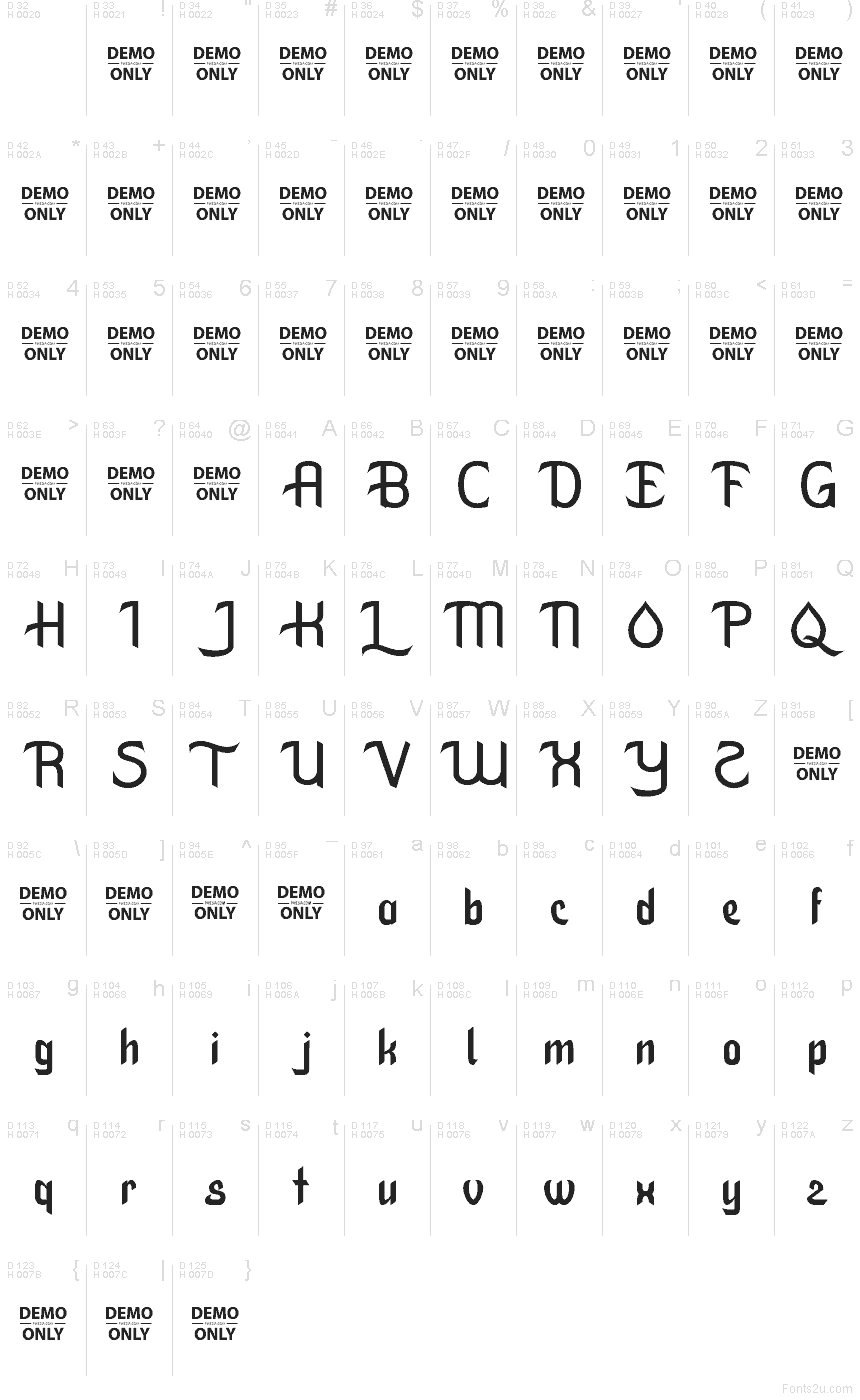
Ramadhan Day font by Pixesia Studio is a free faux-Arabic decorative typeface that turns Latin letters into flowing, Eastern-inspired forms. Tall, slightly condensed letters, gentle curves, and pointed stroke endings echo calligraphy without sacrificing readability. The rhythm feels both festive and dignified, making it easy to evoke Ramadhan and Middle Eastern themes with just a headline or short phrase.
Using Ramadhan Day, your titles instantly gain a warm, lantern-lit atmosphere that works beautifully for Ramadhan event posters, iftar invitations, restaurant menus, packaging, greeting cards, and social media graphics. This free font really shines at larger sizes where its sculpted curves can breathe. Pair it with a clean sans serif for body copy to keep layouts clear while letting Ramadhan Day handle the decorative storytelling.